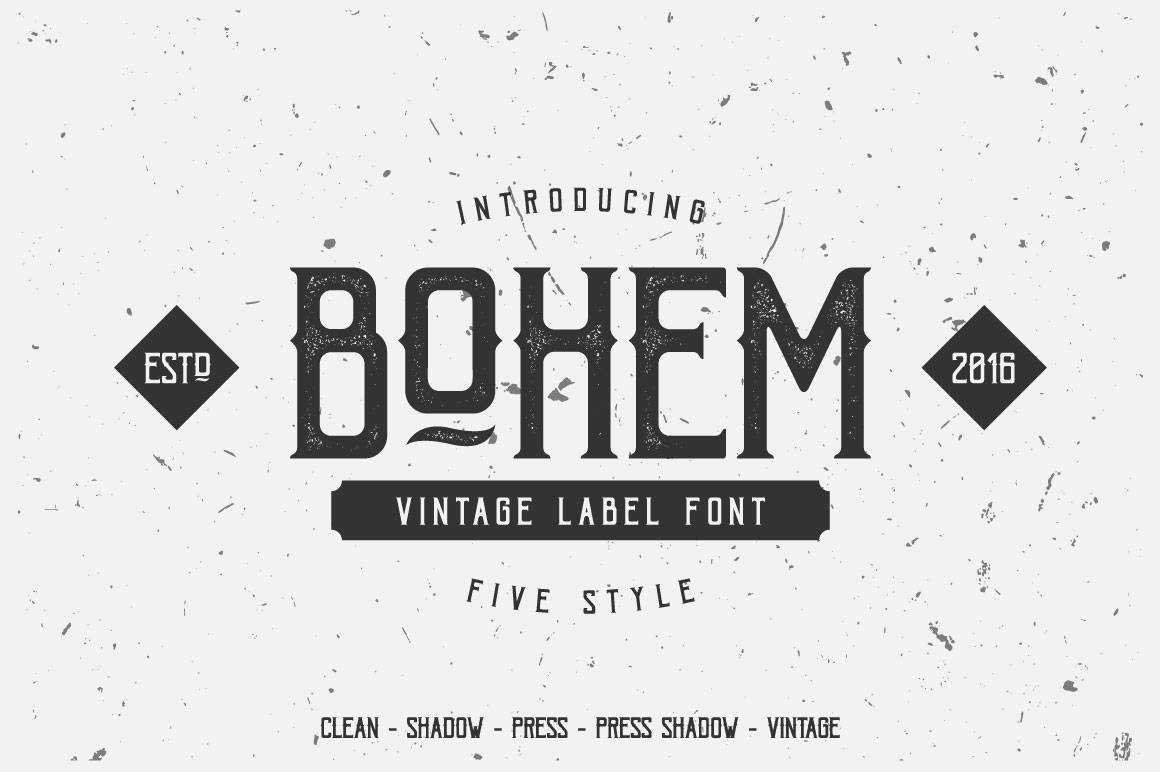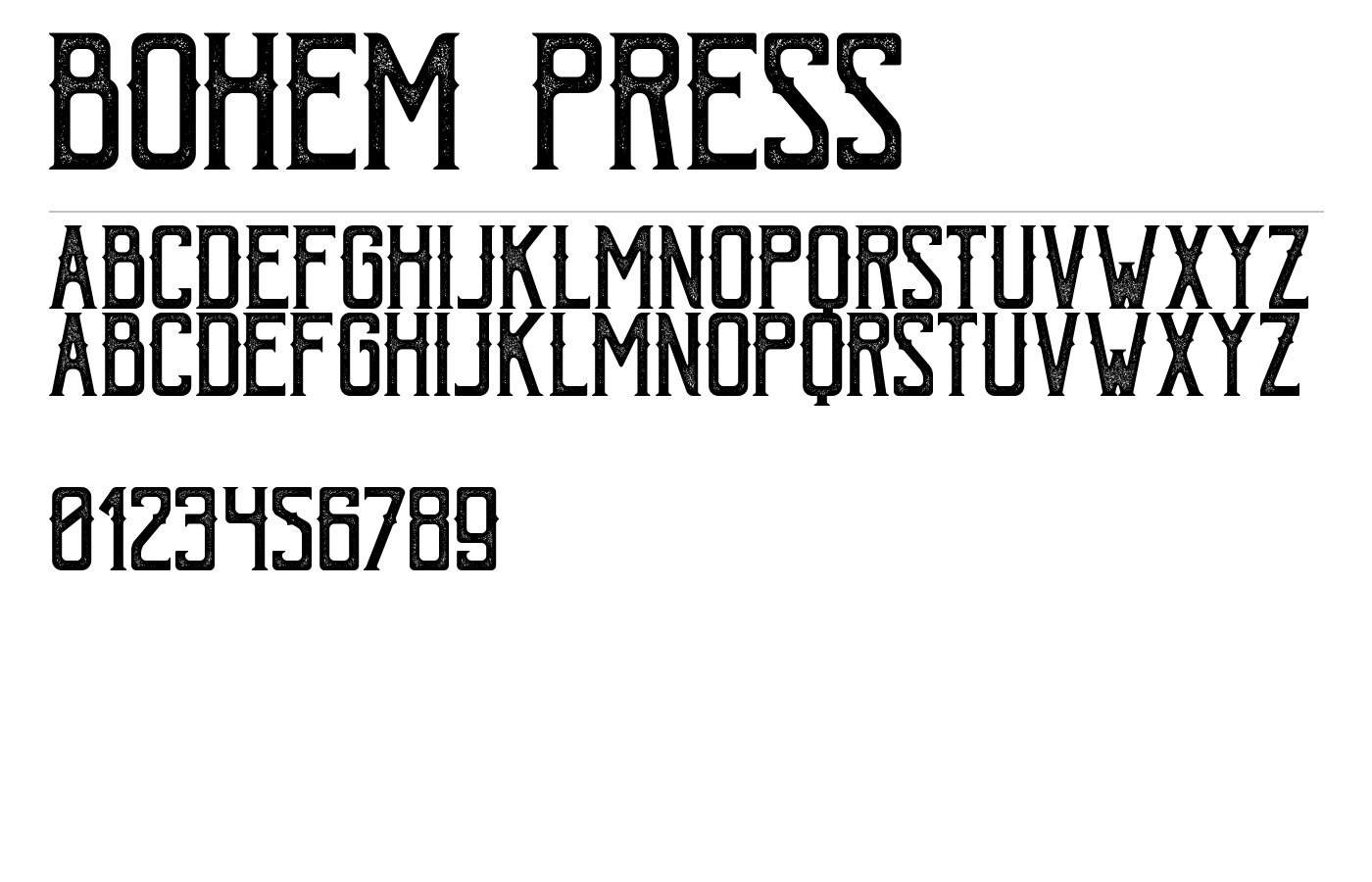
Bohem Press is a bold, condensed serif font with a distinctive vintage and industrial feel, featuring textured, rough edges that add character and a worn, handcrafted look. Its tall, narrow letterforms and sharp, bracketed serifs make it ideal for impactful headlines, logos, and branding that seek to convey strength and authenticity with a touch of rustic charm. This font works well in designs that want to evoke a historic, rugged, or artisanal mood.
Bohem Press Font
About Bohem Press Font
| Font family | Bohem Press Font |
| Release date | 2016-08-11 |
| Designer | Andika Setiawan |